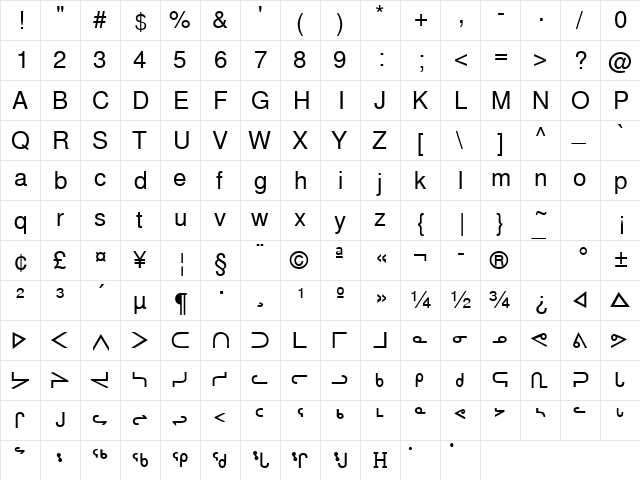
InuktitutSSK Regular
Design Context for InuktitutSSK Typeface
InuktitutSSK offers clean, dependable letterforms without strong stylistic allegiance, making it a practical choice for designers who need flexibility.